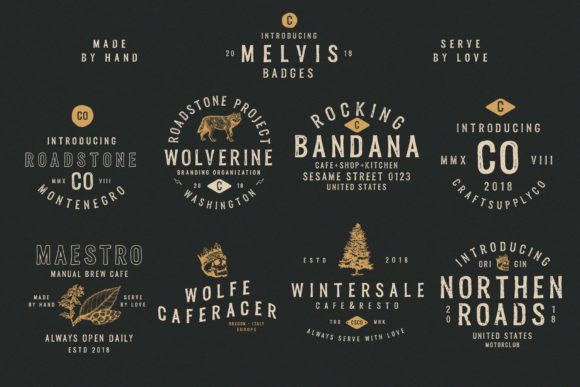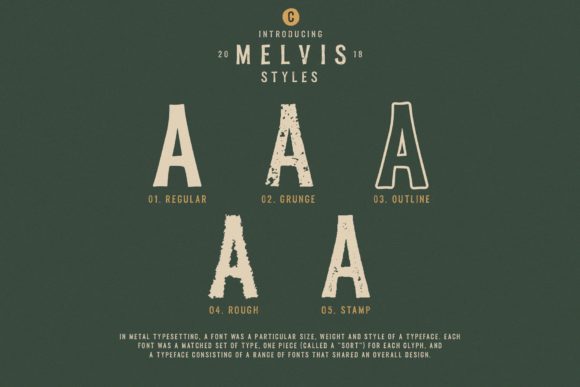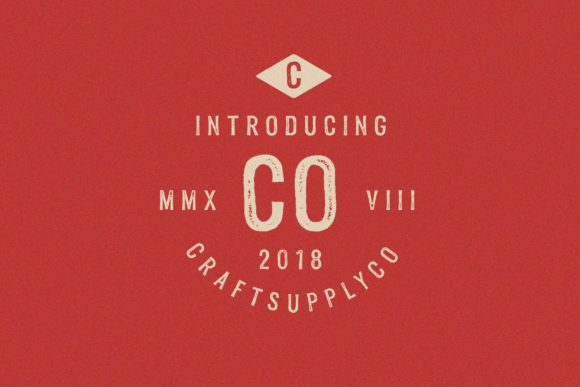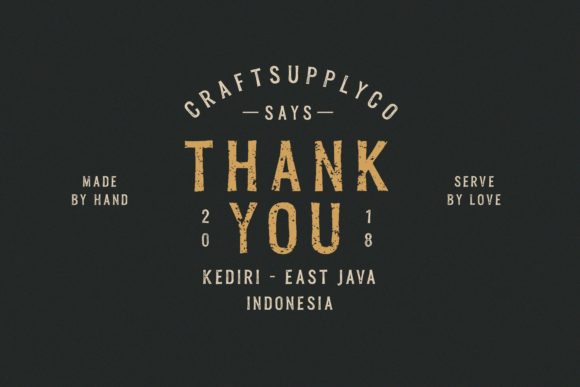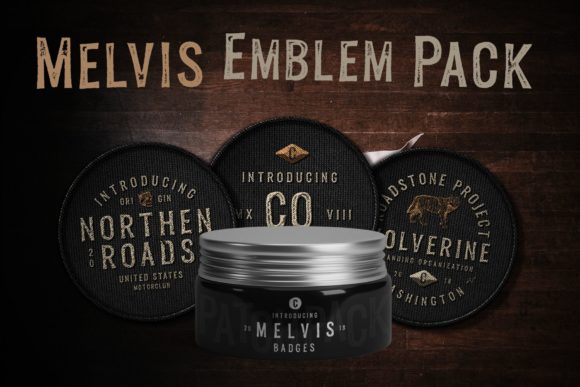
Introduction to Melvis Family Font
Do you remember the feeling of excitement when you first discovered a new design resource that made your creative project come alive? For many designers, it’s the thrill of stumbling upon a unique font that perfectly captures the essence of their vision. Today, we’re thrilled to introduce you to the Melvis Family Font, a stunning vintage font family that’s about to become your new favorite design companion.
With its bold style and exceptional readability, the Melvis Family Font is perfect for a wide range of creative projects, from greeting cards and package designs to brand identities and craft designs. And the best part? This high-quality font family comes in five styles, allowing you to experiment with different patterns and shapes to create truly one-of-a-kind designs.
Key Features of Melvis Family Font
- High-quality design resource suitable for various creative projects, including graphic design, digital art, and print media.
- Includes a range of font styles, from bold and playful to elegant and sophisticated, allowing users to customize their designs to suit their needs.
- Has a large character set, including international characters, making it suitable for projects that require multilingual support.
Honest Review: Melvis Family Font
I recently stumbled upon the Melvis Family Font while searching for a high-quality font to use in my design project. I must say, I was impressed with its overall design and versatility.
What works well: ✨ The font comes in a range of styles, from casual to formal, making it perfect for a variety of creative projects. The font’s transparency option also allows for seamless use on transparent backgrounds, which is a big plus for designers like me.
However, I did encounter some limitations: ⚠️ The font’s bold weights can appear a bit clumsy in certain situations, and I wish there were more options for customization.
Overall, I’d say the Melvis Family Font is a great addition to any designer’s toolkit. While it may not be perfect, its strengths outweigh its limitations, making it a valuable resource for any creative project.
Tips for Getting the Most Out of Melvis Family Font
For the best results, use Melvis Family Font on a high-quality design resource, such as a transparent background. This will help the font stand out and give your creative project a professional look. You can also experiment with different font sizes and styles to add visual interest to your design.